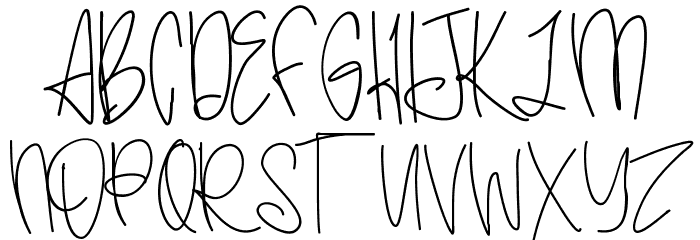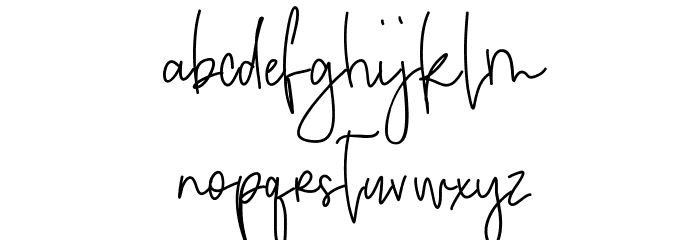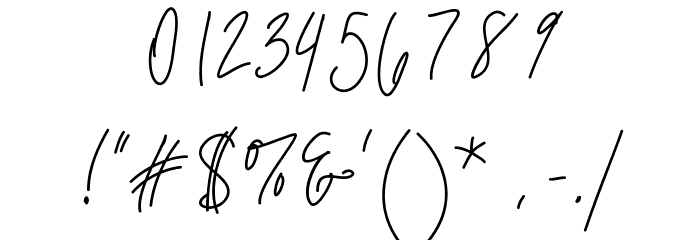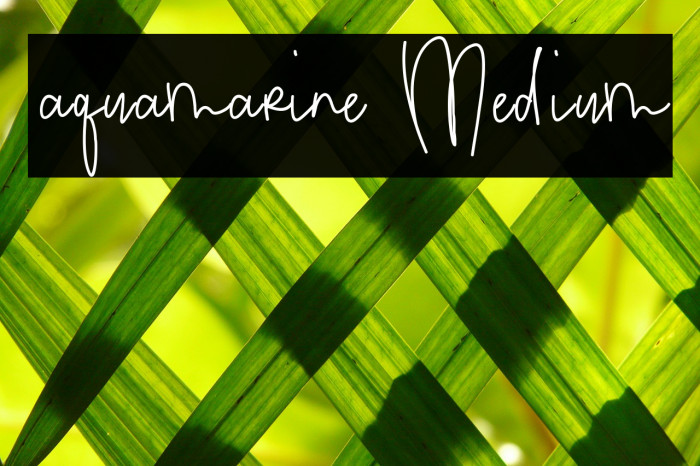
aquamarine Medium Font
This font features a playful and casual handwritten style, characterized by its flowing, organic lines and slightly irregular letterforms. The uppercase letters are tall and narrow, with a whimsical flair that adds a touch of personality. The lowercase letters maintain a consistent style, with smooth curves and a relaxed appearance. Numbers and special characters are designed to match the overall aesthetic, providing a cohesive look. The font's informal nature makes it suitable for creative projects where a personal touch is desired.
A playful, casual handwritten font with flowing, organic lines.
- Proposed Projects: Ideal for greeting cards, invitations, personal branding, and creative projects that require a personal touch.
- Category: Handwritten
- Overall Style: Casual, Playful
- Use Case: Logos, Invitations, Personal Branding